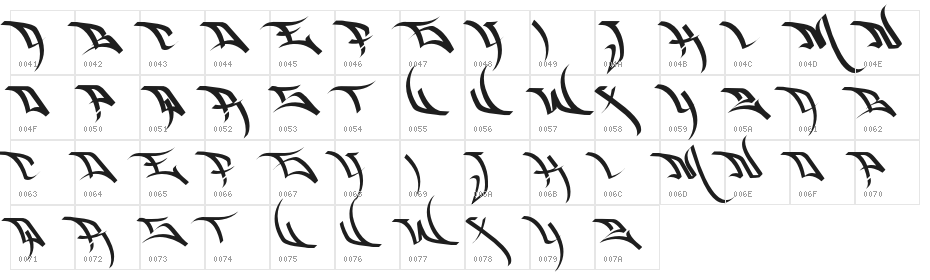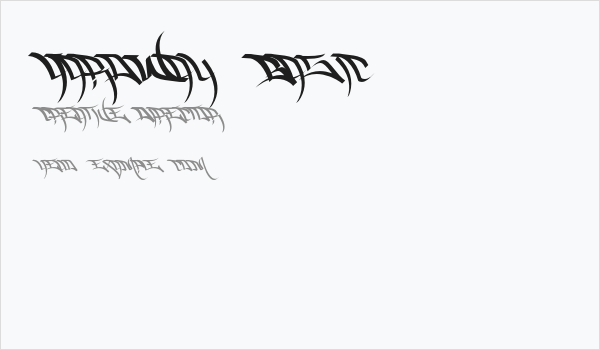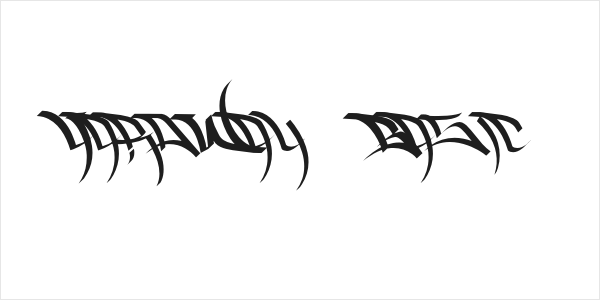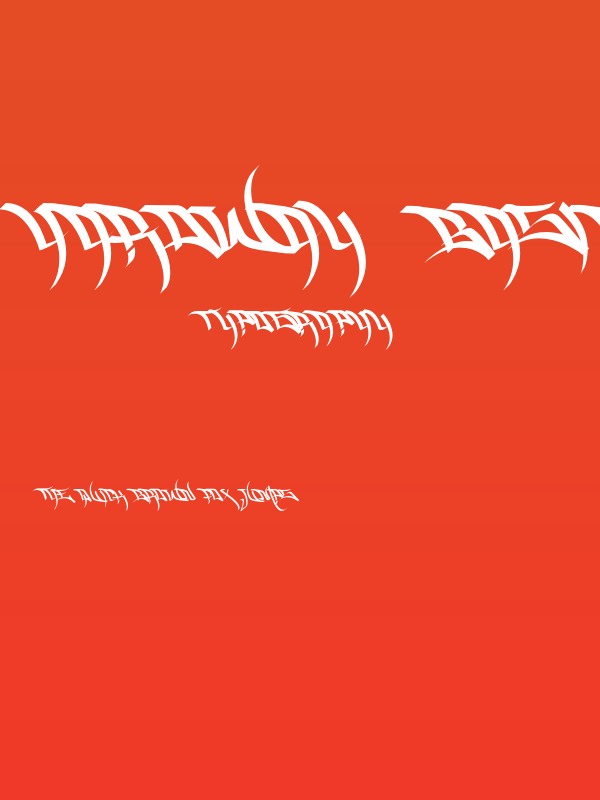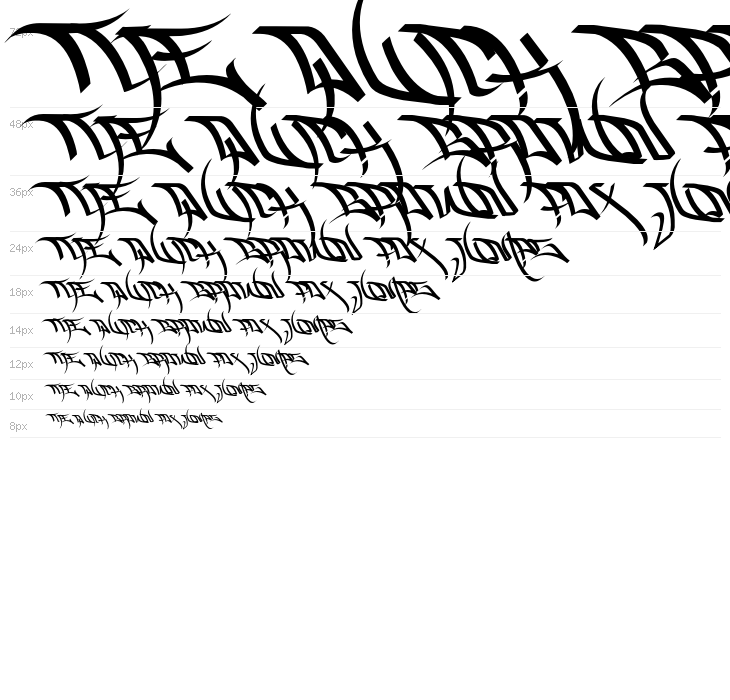
HardWay-Basic Font
HardWay-Basic Description
This font features a highly stylized and decorative design, reminiscent of graffiti or tattoo art. The characters are bold and intricate, with sharp, angular lines and dramatic curves that create a sense of movement and energy. Each letter is unique, with elaborate flourishes and extensions that give the font a rebellious and edgy feel. The overall appearance is striking and unconventional, making it ideal for projects that require a bold statement or artistic flair. The font's complexity and artistic nature make it stand out, capturing attention with its dynamic and expressive style.
| Use Case | Logos, Posters, Artistic projects |
| Proposed Projects | Ideal for street art designs, tattoo art, music album covers, and edgy branding projects. |